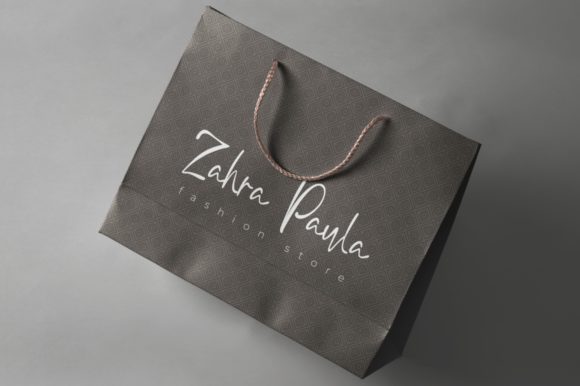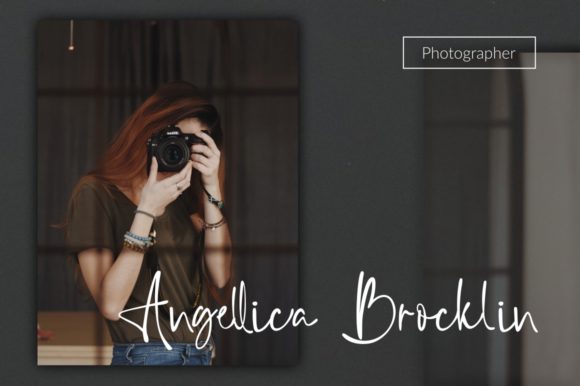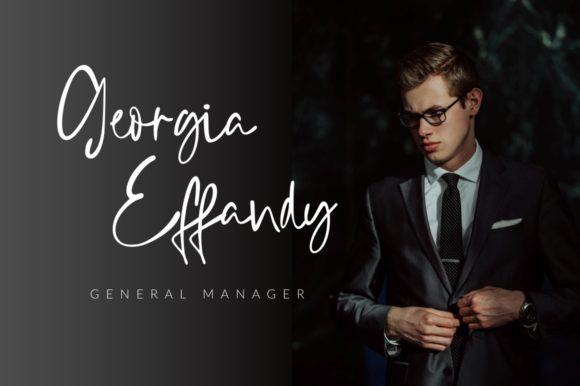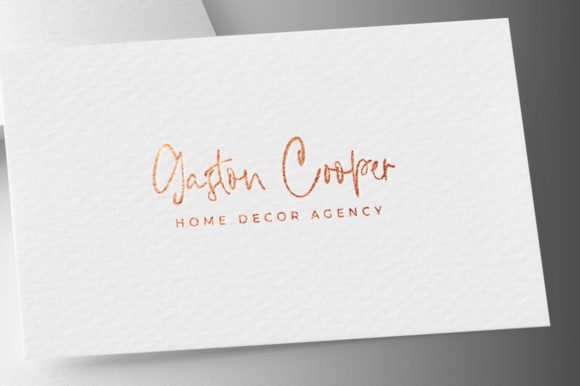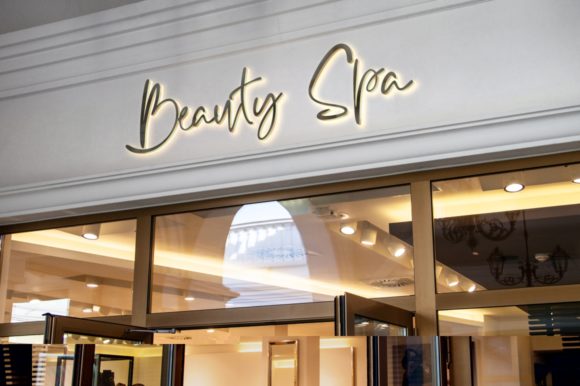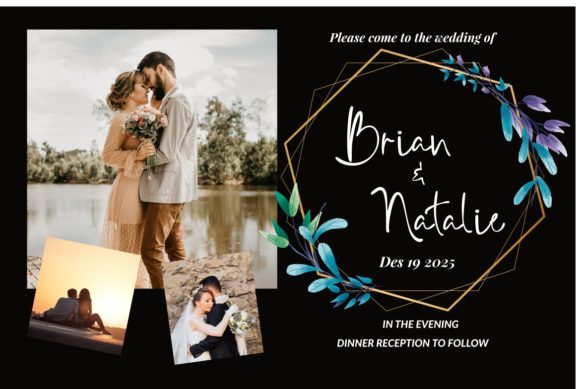
Introducing Collegass Signature Font: Elevate Your Designs with Elegance and Charm
In the world of typography, fonts play a crucial role in conveying the tone and aesthetic of a design. For designers and crafters looking to add a touch of sophistication and whimsy to their projects, Collegass Signature Font is an excellent choice. This stylish and modern font boasts a chic casual flair, making it perfect for a variety of applications, from wedding invitations and cards to letters and more.
The Charm of Handwritten Typography
Collegass Signature Font is a beautiful example of handwritten typography, characterized by its charming and elegant strokes. The font’s casual, yet refined appearance makes it an ideal selection for designers seeking to create a warm and inviting atmosphere in their designs. Whether you’re working on a wedding invitation, a greeting card, or a personal letter, Collegass Signature Font is sure to impress.
Key Features of Collegass Signature Font
- Handwritten Style: Collegass Signature Font features a genuine handwritten style, complete with subtle imperfections and variations in stroke width, giving it a personal and organic feel.
- Chic Casual Flair: The font’s modern and stylish appearance makes it perfect for a wide range of design applications, from formal events to personal correspondence.
- Versatility: Collegass Signature Font can be used for a variety of projects, including wedding invitations, greeting cards, letters, and more.
- Ease of Use: The font is easy to read and works well in both digital and print formats, making it a versatile addition to any designer’s toolkit.
Design Applications for Collegass Signature Font
Collegass Signature Font is a versatile typeface that can be used in a variety of design applications. Here are a few ideas to get you started:
- Wedding Invitations: Add a touch of elegance and romance to your wedding invitations with Collegass Signature Font.
- Greeting Cards: Create beautiful and heartfelt greeting cards for special occasions, such as birthdays, anniversaries, and holidays.
- Personal Letters: Add a personal touch to your letters with Collegass Signature Font, making them feel more like handwritten correspondence.
- Stationery: Use Collegass Signature Font to create stylish and modern stationery, perfect for personal or business use.
Tips for Using Collegass Signature Font
To get the most out of Collegass Signature Font, here are a few tips to keep in mind:
- Pair with Other Fonts: Experiment with pairing Collegass Signature Font with other fonts to create a unique and visually appealing design.
- Adjust Font Size: Adjust the font size to achieve the desired effect, from large and bold to small and delicate.
- Use in Digital and Print Formats: Take advantage of Collegass Signature Font’s versatility by using it in both digital and print formats.
Collegass Signature Font is a beautiful and versatile typeface that is sure to elevate your designs with its elegant and charming appearance. With its handwritten style, chic casual flair, and ease of use, this font is perfect for designers and crafters looking to add a touch of sophistication and whimsy to their projects. Whether you’re working on a wedding invitation, greeting card, or personal letter, Collegass Signature Font is an excellent choice.